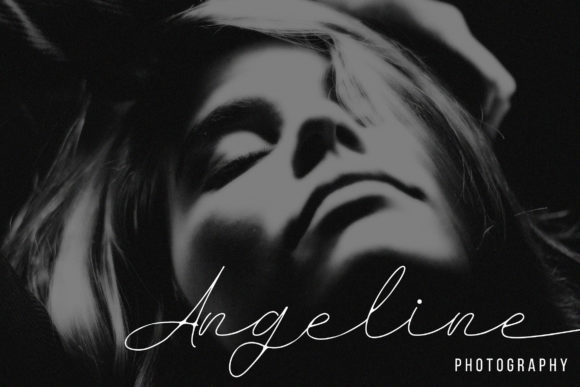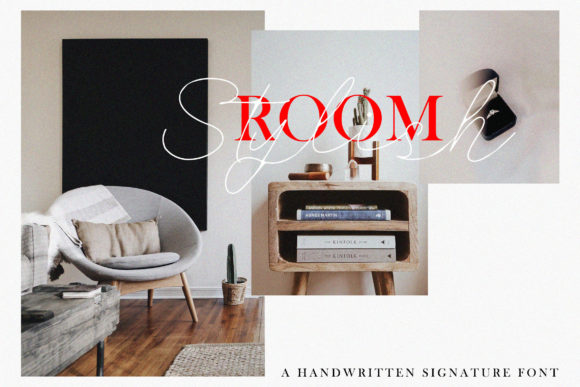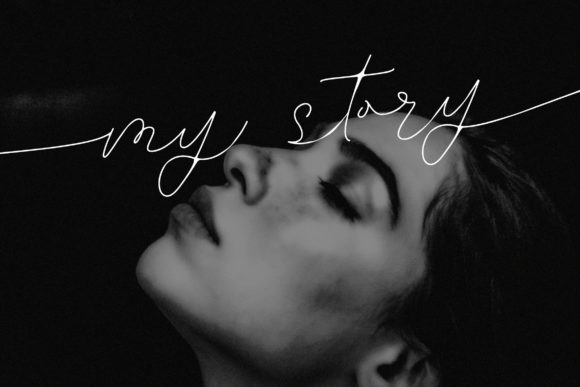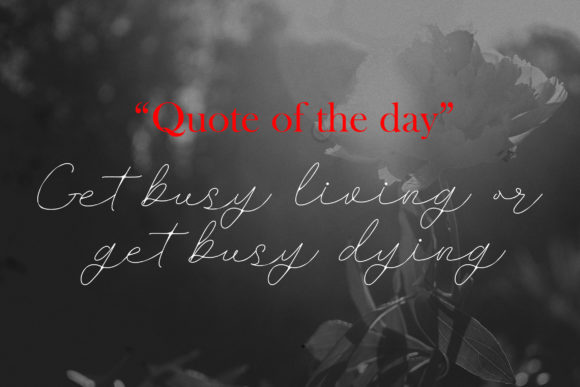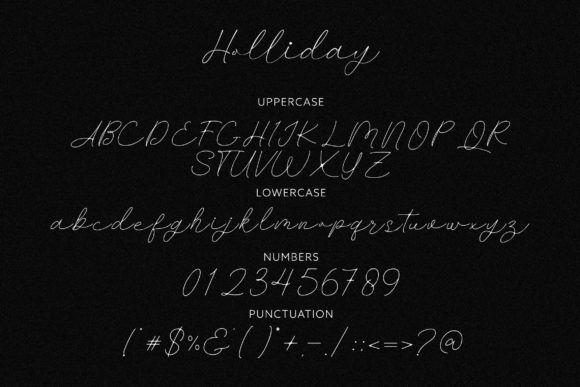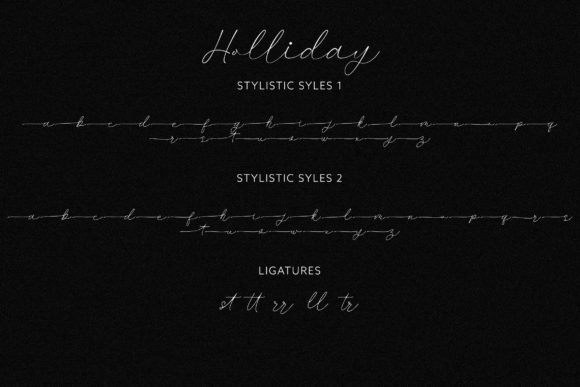
Holliday Font
About Holliday Font
Holliday is a lovely script font featuring charming, playful characters that seem to dance along the baseline. This font is PUA encoded which means you can access all glyphs and swashes with ease!